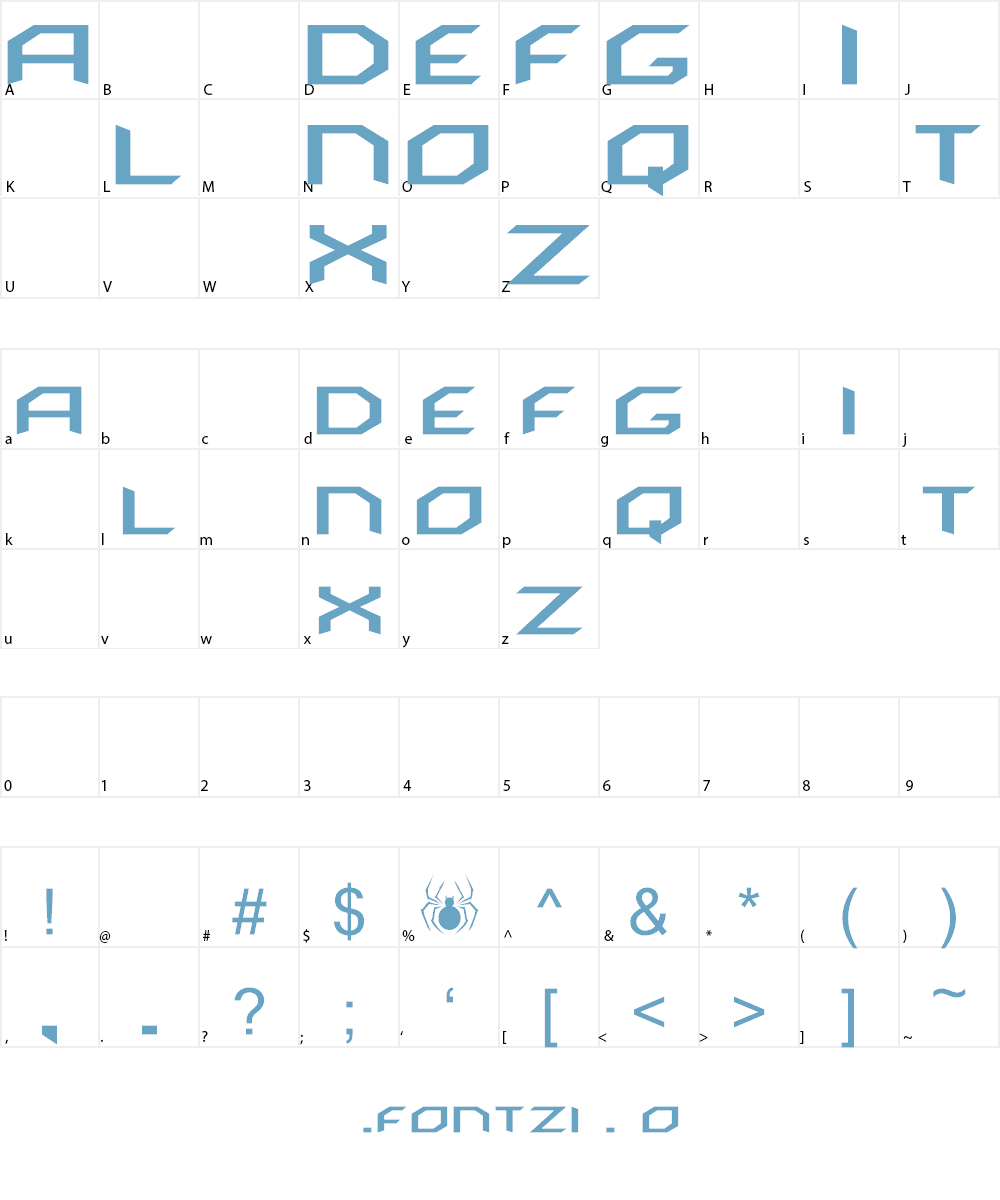
I created this typeface based on the on the GODZILLA anime movie this famous King of Monsters has had many incarnations depicted as an enormous, destructive, prehistoric sea monster awakened and empowered by nuclear radiation.